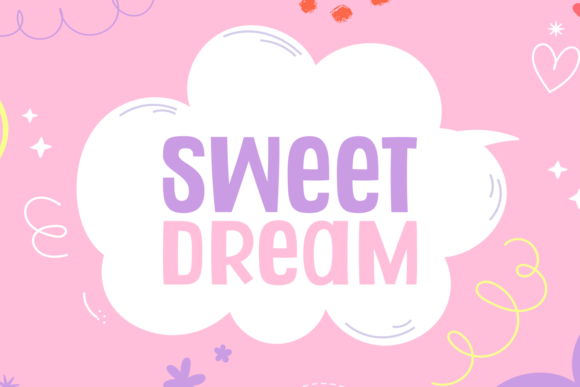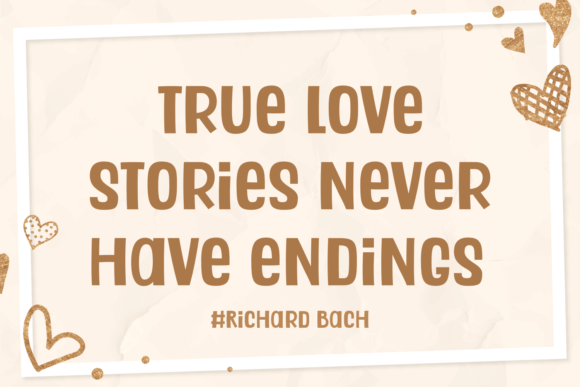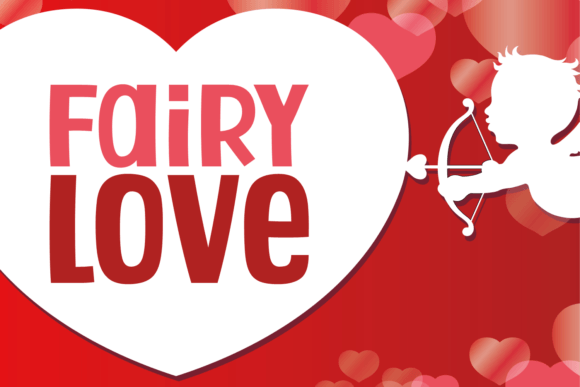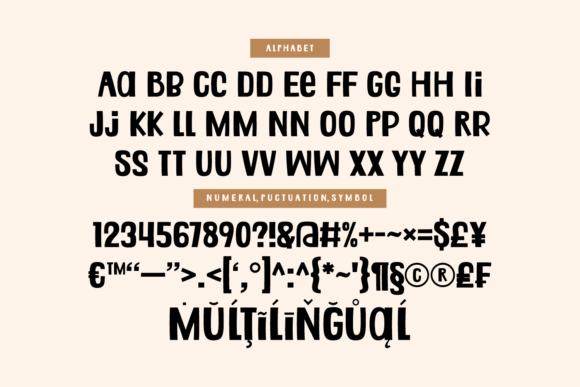
Cutes Mira Font: Elevate Your Designs with a Casual and Neat Display Font
Are you tired of using the same old fonts in your designs? Look no further than Cutes Mira Font, a casual and neat display font that’s sure to become a true favorite. Masterfully designed to bring each of your creative ideas to the highest level, Cutes Mira Font is the perfect addition to any designer’s toolkit.
What is Cutes Mira Font?
Cutes Mira Font is a display font that’s designed to make a statement. Its casual and neat style makes it perfect for a wide range of design projects, from branding and advertising to packaging and digital media. With its unique and eye-catching design, Cutes Mira Font is sure to grab attention and leave a lasting impression.
Key Features of Cutes Mira Font
• Casual and Neat Style: Cutes Mira Font has a relaxed and effortless vibe that’s perfect for designs that need to feel friendly and approachable.
• Masterfully Designed: With careful attention to detail and a focus on aesthetics, Cutes Mira Font is a true masterpiece of font design.
• High Versatility: Whether you’re designing a logo, brochure, or social media post, Cutes Mira Font is the perfect choice.
• Easy to Read: Despite its unique design, Cutes Mira Font is incredibly easy to read, making it perfect for body text and headlines.
Why Choose Cutes Mira Font?
So why choose Cutes Mira Font over other display fonts on the market? Here are just a few reasons why designers and crafters are falling in love with this amazing font:
• Unique Design: Cutes Mira Font has a one-of-a-kind design that’s sure to make your designs stand out from the crowd.
• Time-Saving: With Cutes Mira Font, you can create stunning designs in a fraction of the time it would take with other fonts.
• High-Quality: With its crisp and clean design, Cutes Mira Font is perfect for high-resolution designs and prints.
How to Use Cutes Mira Font
Using Cutes Mira Font is easy! Here are a few tips to get you started:
• Pair it with Other Fonts: Cutes Mira Font pairs perfectly with other fonts, so don’t be afraid to experiment with different combinations.
• Use it for Headlines: With its bold and eye-catching design, Cutes Mira Font is perfect for headlines and titles.
• Add Texture and Patterns: Add some extra visual interest to your designs by combining Cutes Mira Font with texture and patterns.
Design Inspiration with Cutes Mira Font
Still not sure how to use Cutes Mira Font? Here are a few design ideas to get you started:
• Branding and Packaging: Use Cutes Mira Font to create eye-catching branding and packaging designs that stand out on store shelves.
• Digital Media: Create stunning social media posts, blog headers, and email newsletters with Cutes Mira Font.
• Advertising and Marketing: Use Cutes Mira Font to create bold and attention-grabbing ads that drive results.